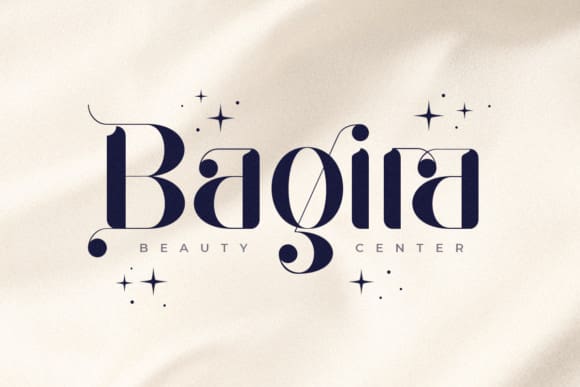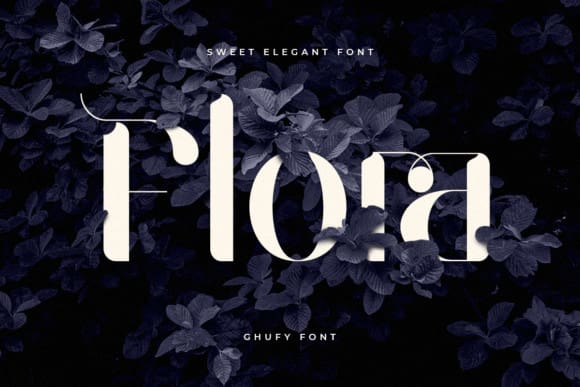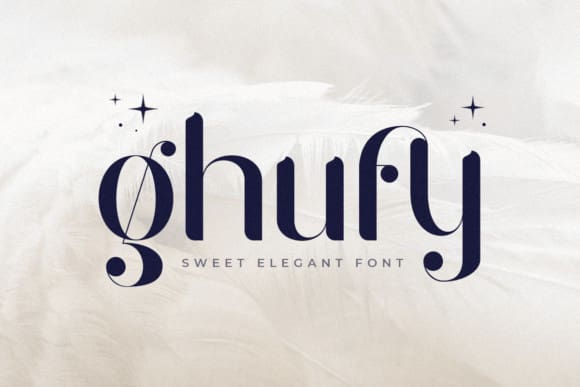
Ghufy Display Font
Ghufy Display Font – a stylish display font, captivates with its unique design, blending modern aesthetics with timeless sophistication. The distinctive characters and graceful letterforms exude a sense of refinement, making it an ideal choice for projects that demand a touch of sophistication and contemporary elegance.